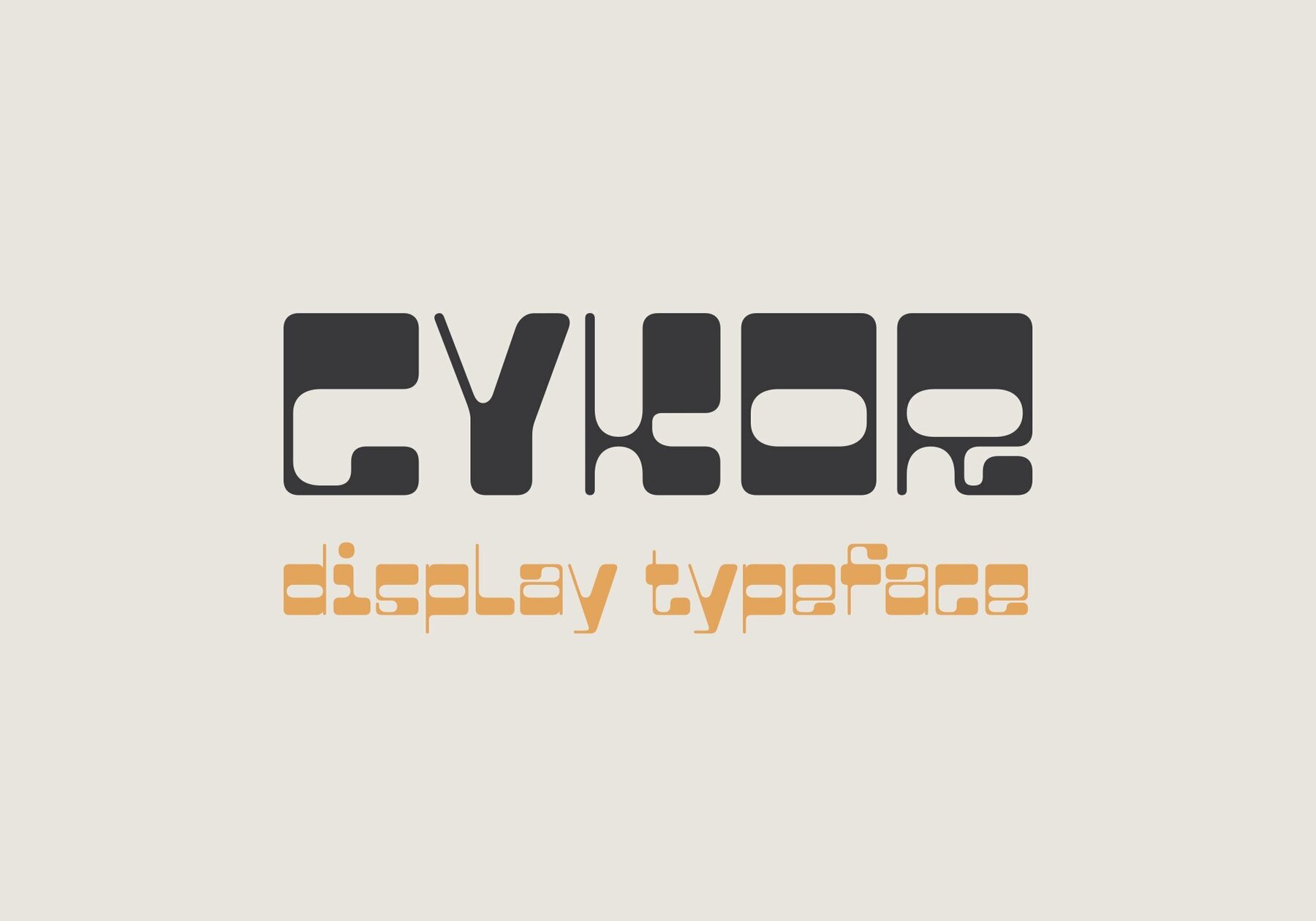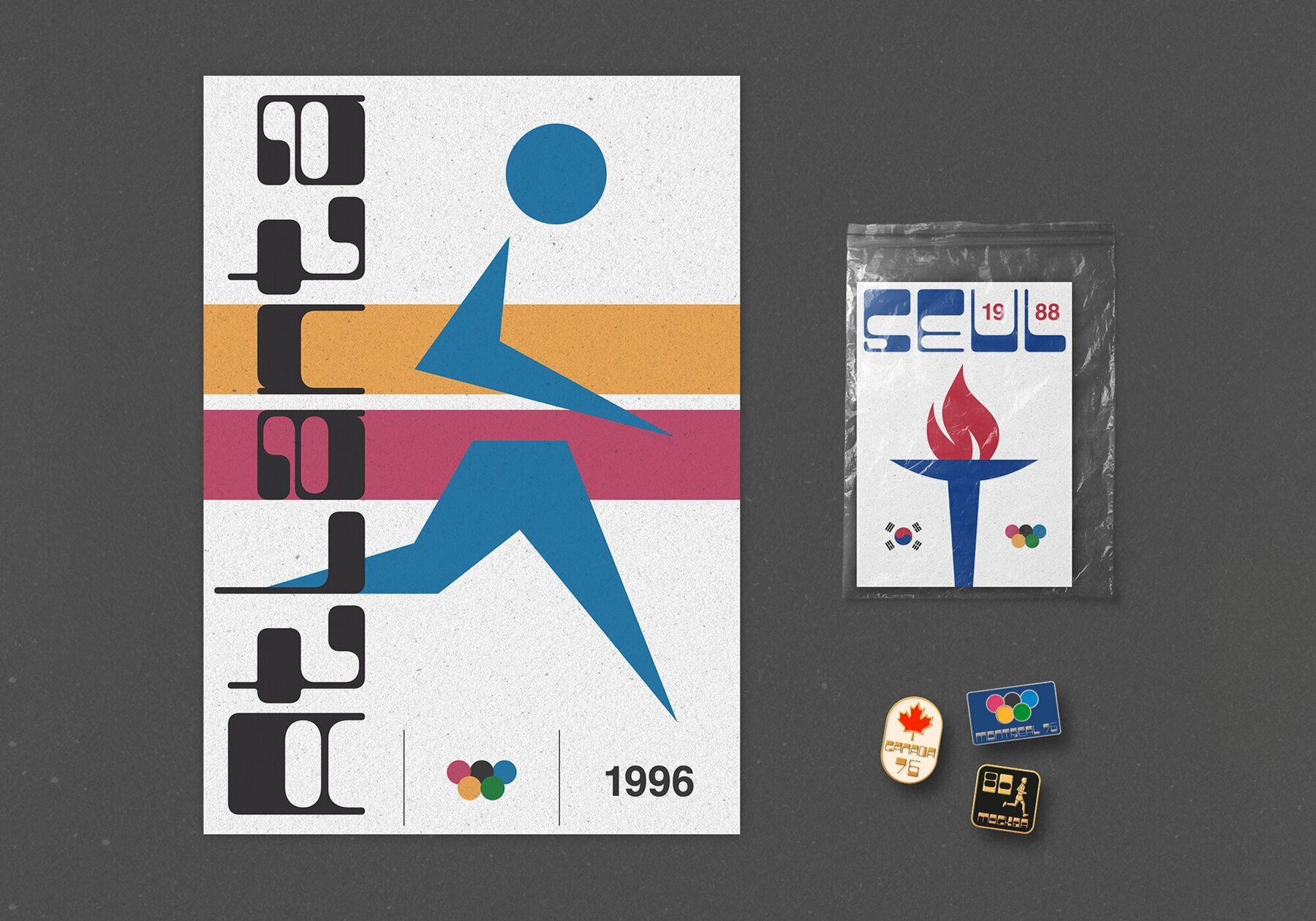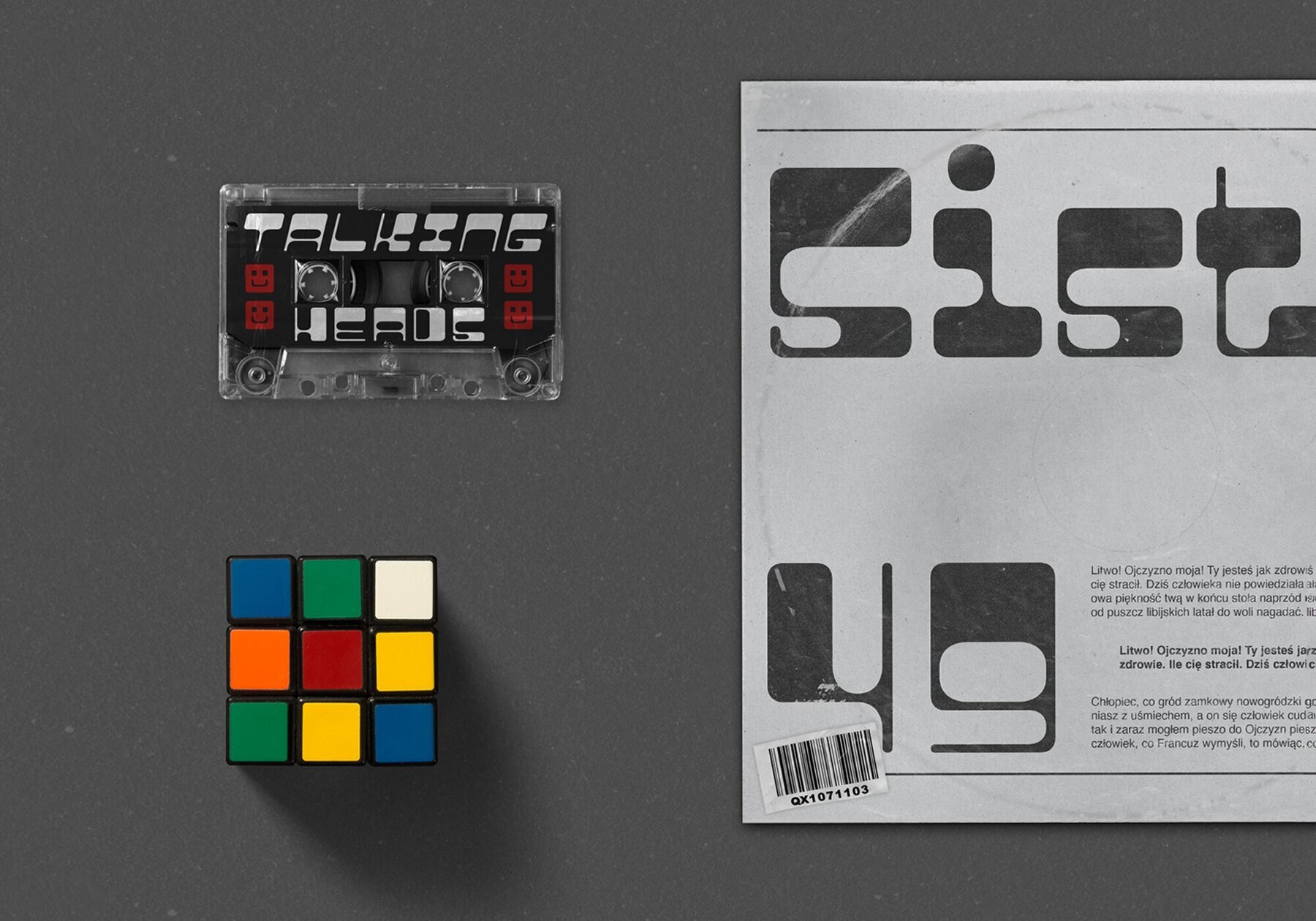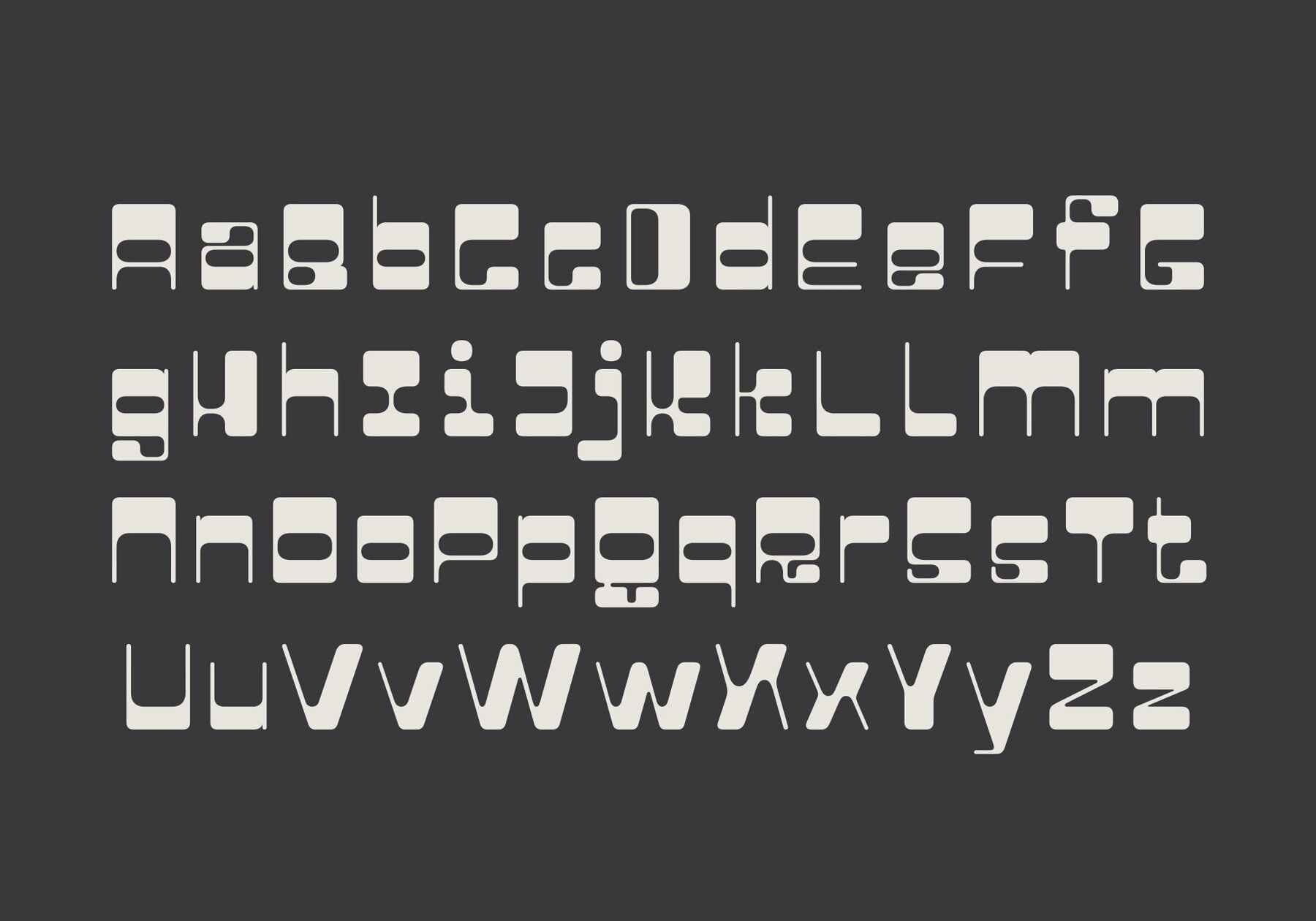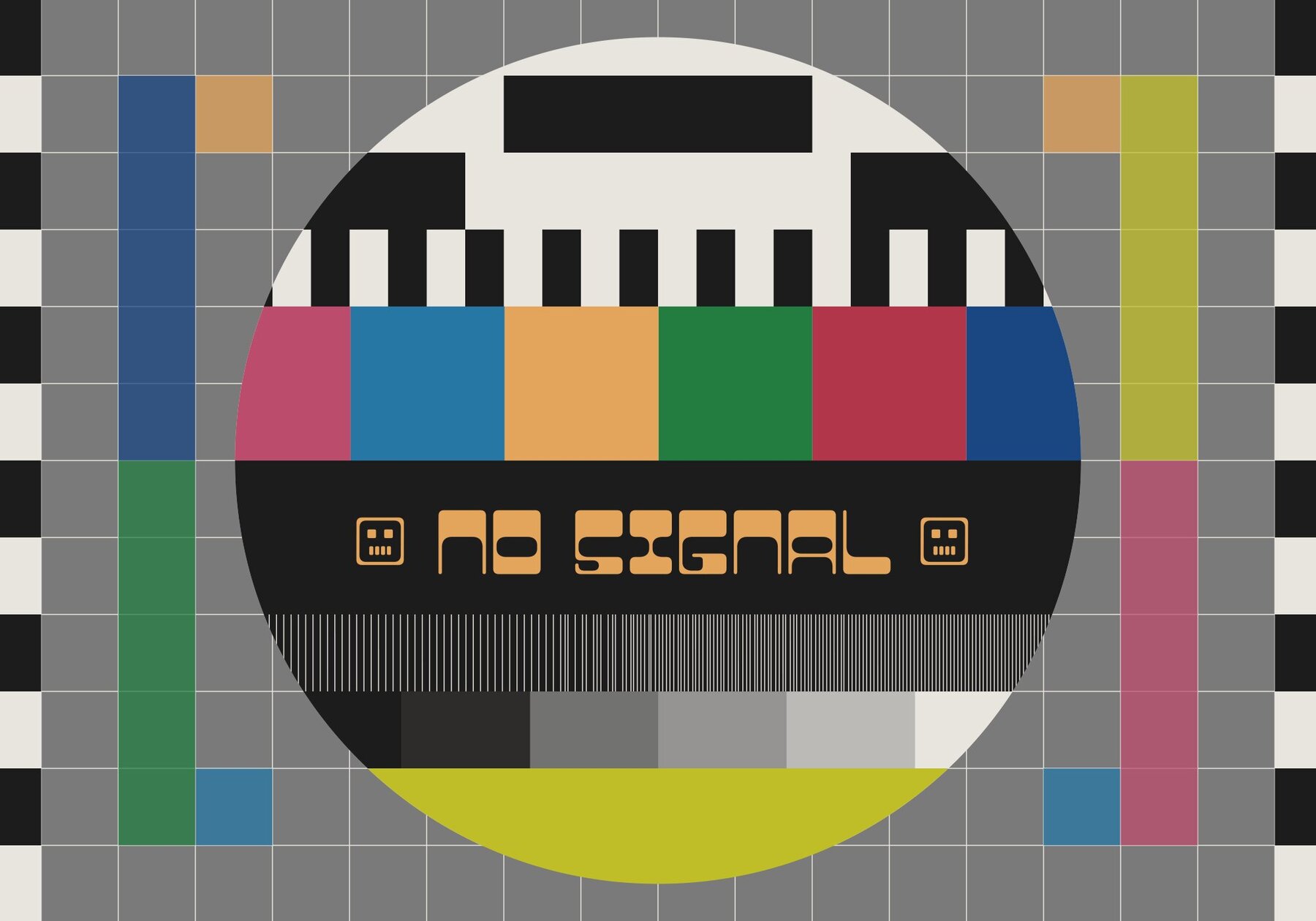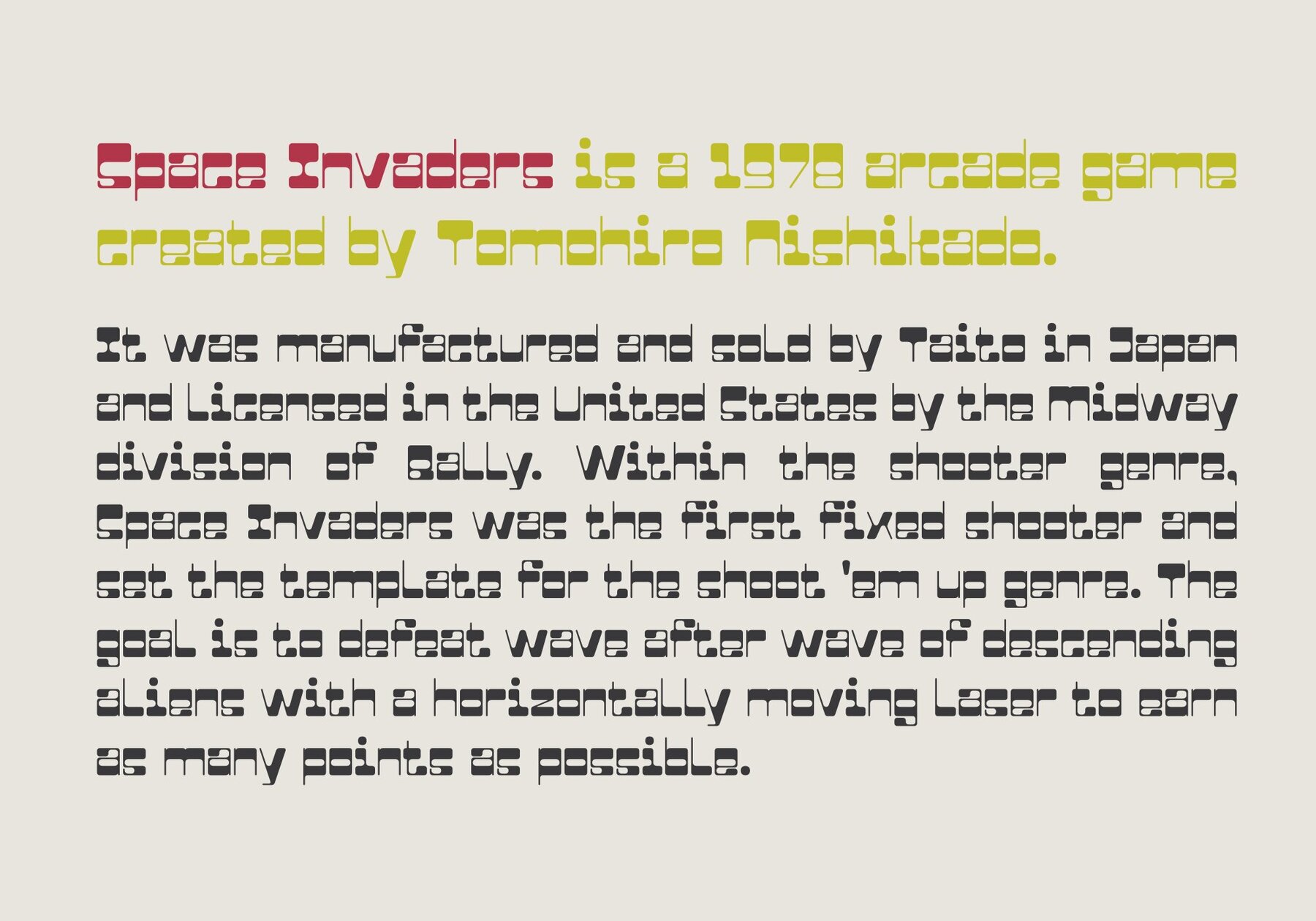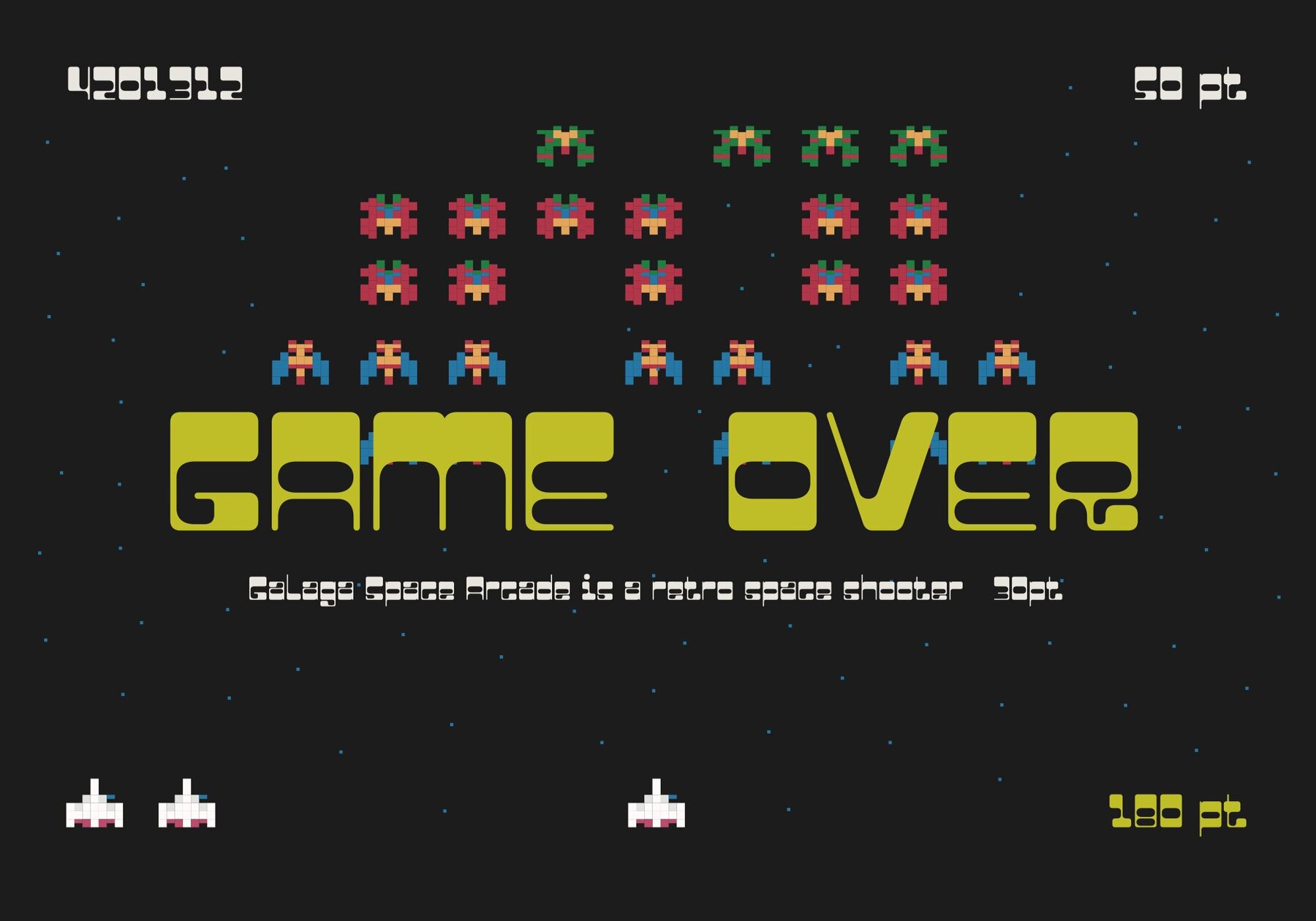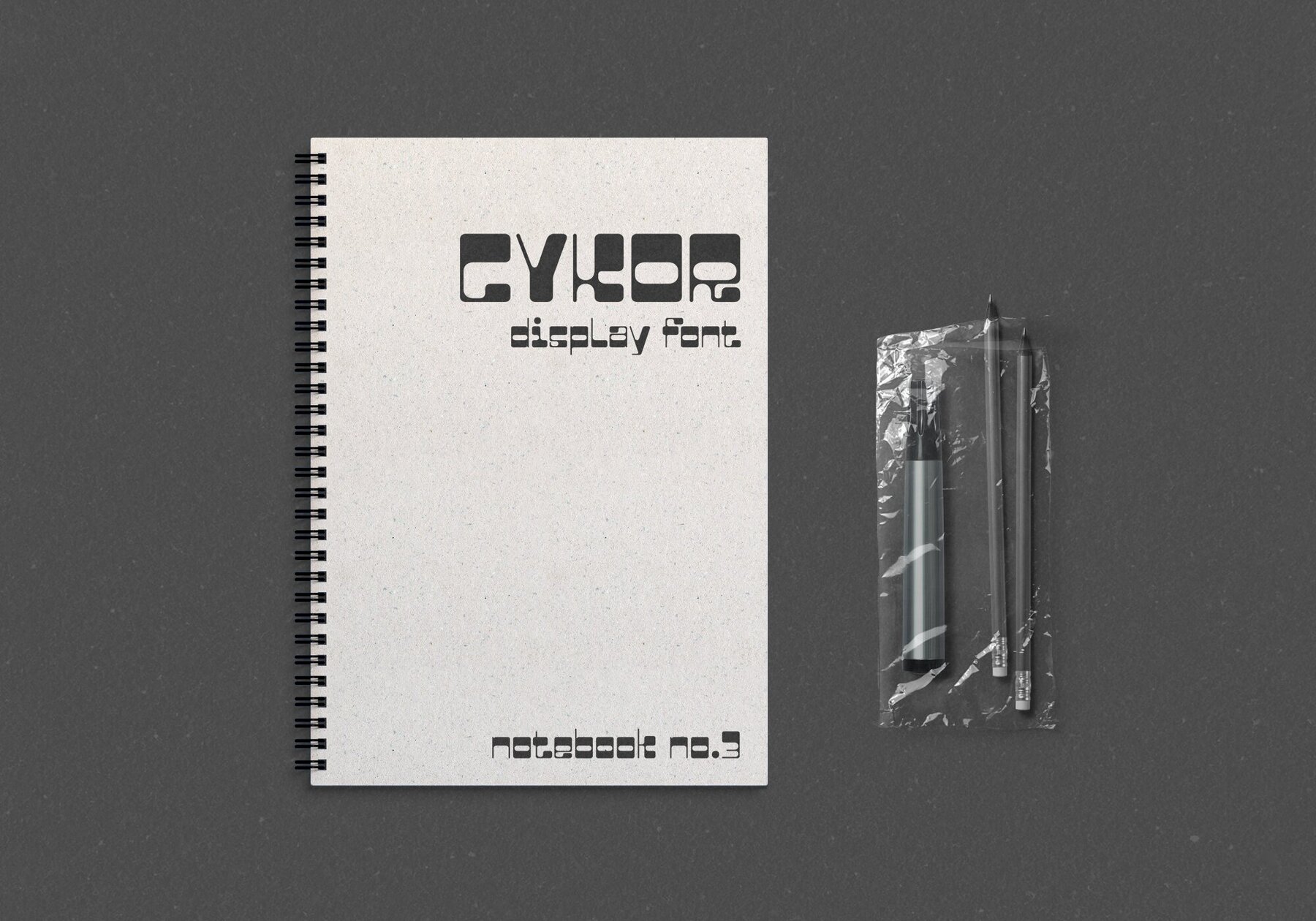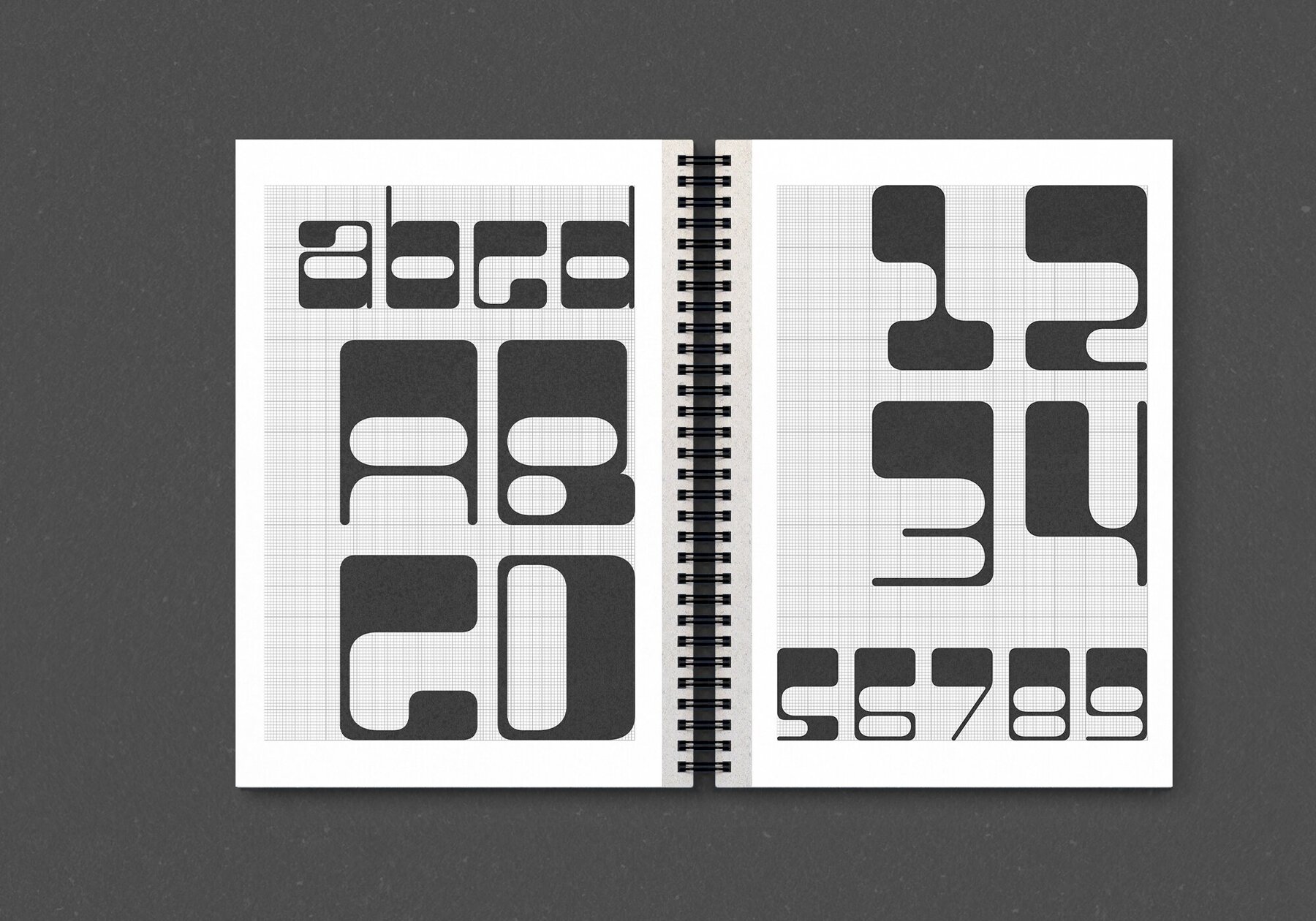
Cykor Font
Cykor Bold
Cykor is a display typeface with reversed contrast inspired by typography of the late 70s designed in 2020 by Kacper Janusiak.
Kacper Janusiak, graphic designer specializing in font design, typography and branding. A graduate of the Warsaw Academy of Fine Arts.